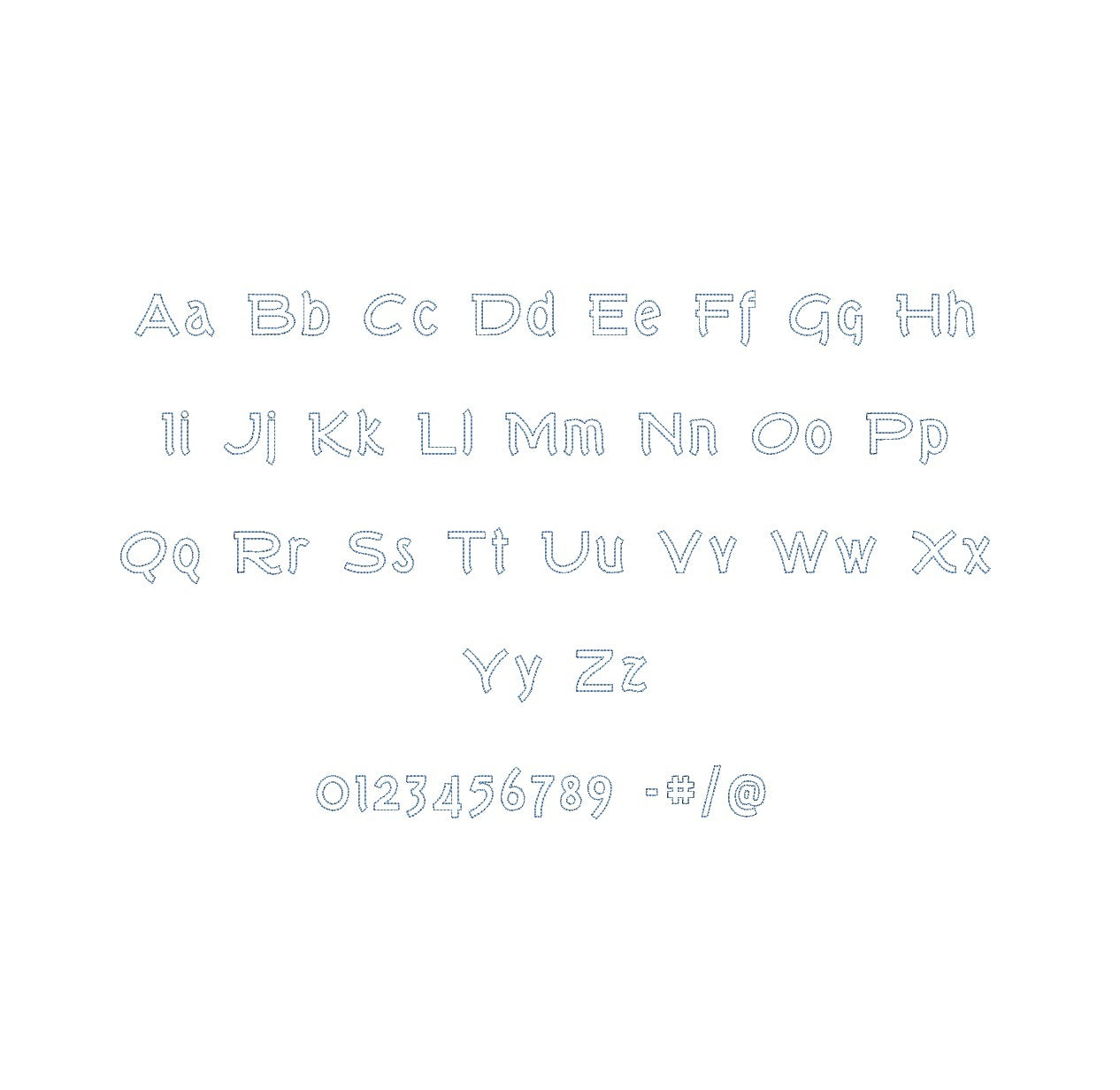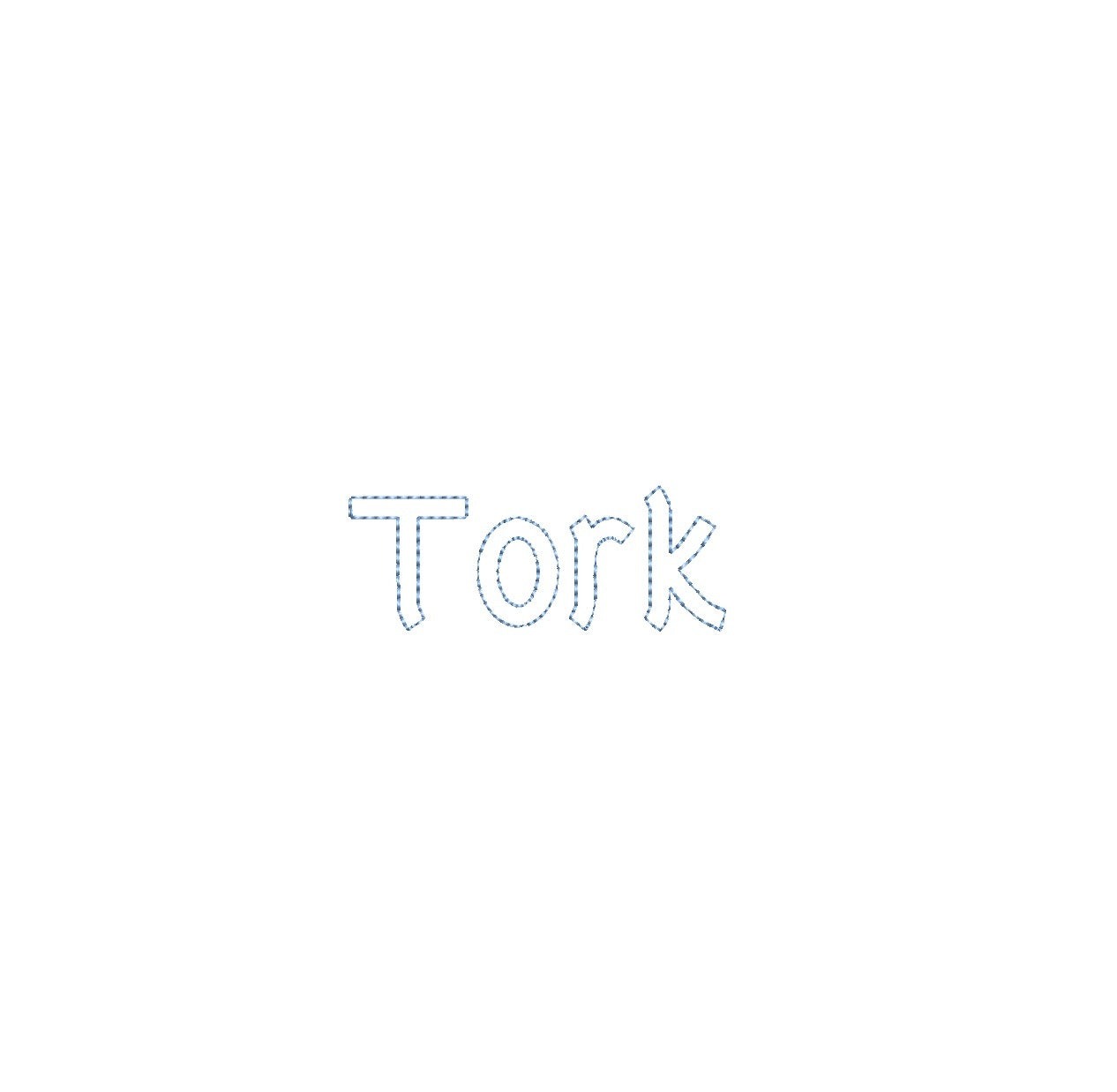
Elevate your embroidery projects with the Tork Bean Stitch Outline ESA font, compatible with Wilcom Studio e4.5.6 and Hatch 3 versions and up. This font seamlessly combines modern flair and precision, infusing your designs with a unique aesthetic perfect for contemporary monograms and embellishments. Experience seamless compatibility for exceptional results and unleash a new level of stitching finesse. Transform your creations into embroidery masterpieces that radiate sophistication and creativity. Elevate your projects with the Tork Bean Stitch Outline ESA font and make your embroidery truly captivating and unforgettable.